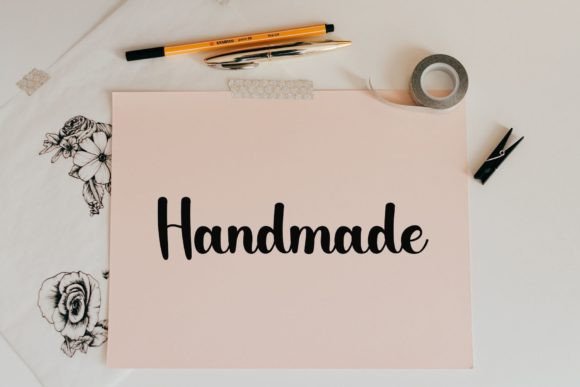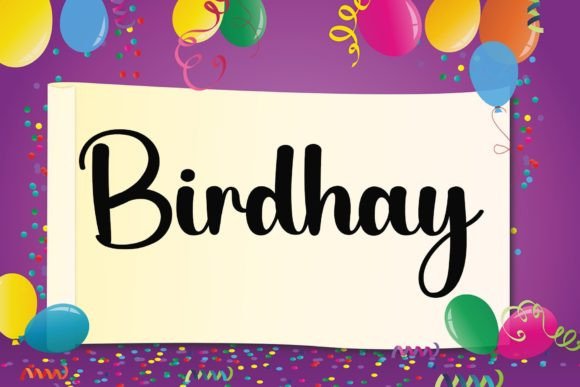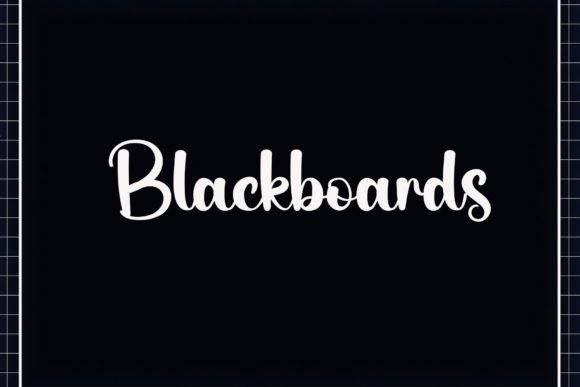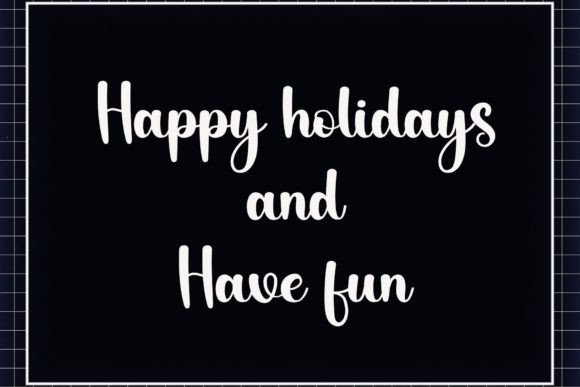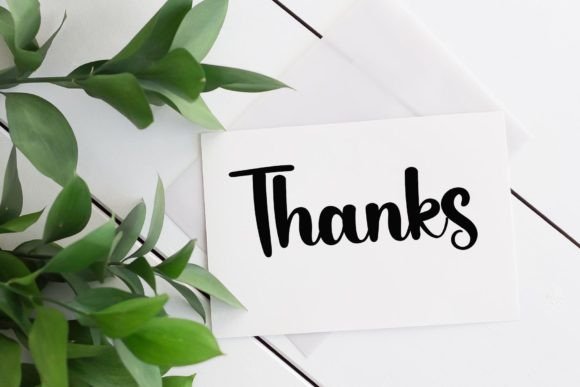
Sunday Font
About Sunday Font
“Sunday” is a delightful and approachable handwritten font that effortlessly radiates a sense of fun and friendliness. Its playful yet stylish appearance makes it an ideal choice for a wide range of design projects, transforming ordinary ideas into extraordinary creations. With its unique charm, “Sunday” inspires creativity and allows designers to craft lovely and standout designs with ease.
The font’s friendly demeanor makes it particularly suitable for **social media graphics**. Whether used in posts, stories, or banners, “Sunday” adds a touch of personality and warmth to the content. Its playful strokes and inviting letterforms create visually appealing designs, making social media profiles more engaging and relatable to the audience. Businesses and influencers often leverage “Sunday” to establish a friendly and approachable online presence, fostering a deeper connection with their followers.
In **greeting cards and invitations**, “Sunday” brings a sense of joy and lightheartedness. Its cheerful letters enhance the celebratory atmosphere, making the recipients feel special and appreciated. Whether used for birthdays, weddings, or other events, the font’s friendly appeal adds an element of delight to the invitations, making them memorable and endearing.
For **product packaging**, “Sunday” adds a playful touch that appeals to consumers of all ages. Its fun and friendly letters create a sense of excitement, making products more appealing on the shelves. Whether used for children’s products, artisanal goods, or lifestyle items, the font’s charm enhances the overall packaging design, making it eye-catching and memorable.
In **logo design**, “Sunday” is a popular choice for brands aiming to convey a relaxed and approachable image. Its friendly handwritten style adds authenticity and personality, making the brand more relatable to customers. The font’s versatility allows it to complement various industries, from cafes and boutiques to creative agencies and online platforms, ensuring that the logo stands out and leaves a positive impression.
When it comes to **quotes and posters**, “Sunday” adds a touch of whimsy and creativity. Its playful letters enhance the inspirational message, making it visually appealing and impactful. The font’s unique charm captures attention, drawing viewers into the message and leaving a lasting impression. Whether used for motivational quotes, wall art, or digital prints, “Sunday” turns ordinary words into visually stunning expressions.
In **personal projects and DIY crafts**, “Sunday” becomes a valuable tool for expressing creativity. Its friendly and fun-loving style enhances handmade cards, scrapbook layouts, and art projects, making them more vibrant and appealing. Crafters and hobbyists appreciate the font’s versatility, allowing them to infuse their creations with a sense of playfulness and charm.
In essence, “Sunday” is more than just a font; it’s an inspiration. Its fun and friendly handwritten style encourage designers and creators to explore their imagination and unleash their artistic potential. By incorporating “Sunday” into design ideas, ordinary concepts are transformed into true standouts, radiating with unique charm and creativity. Embrace the playful spirit of “Sunday,” and let it inspire you to craft lovely designs that leave a lasting impression and bring smiles to those who encounter them.